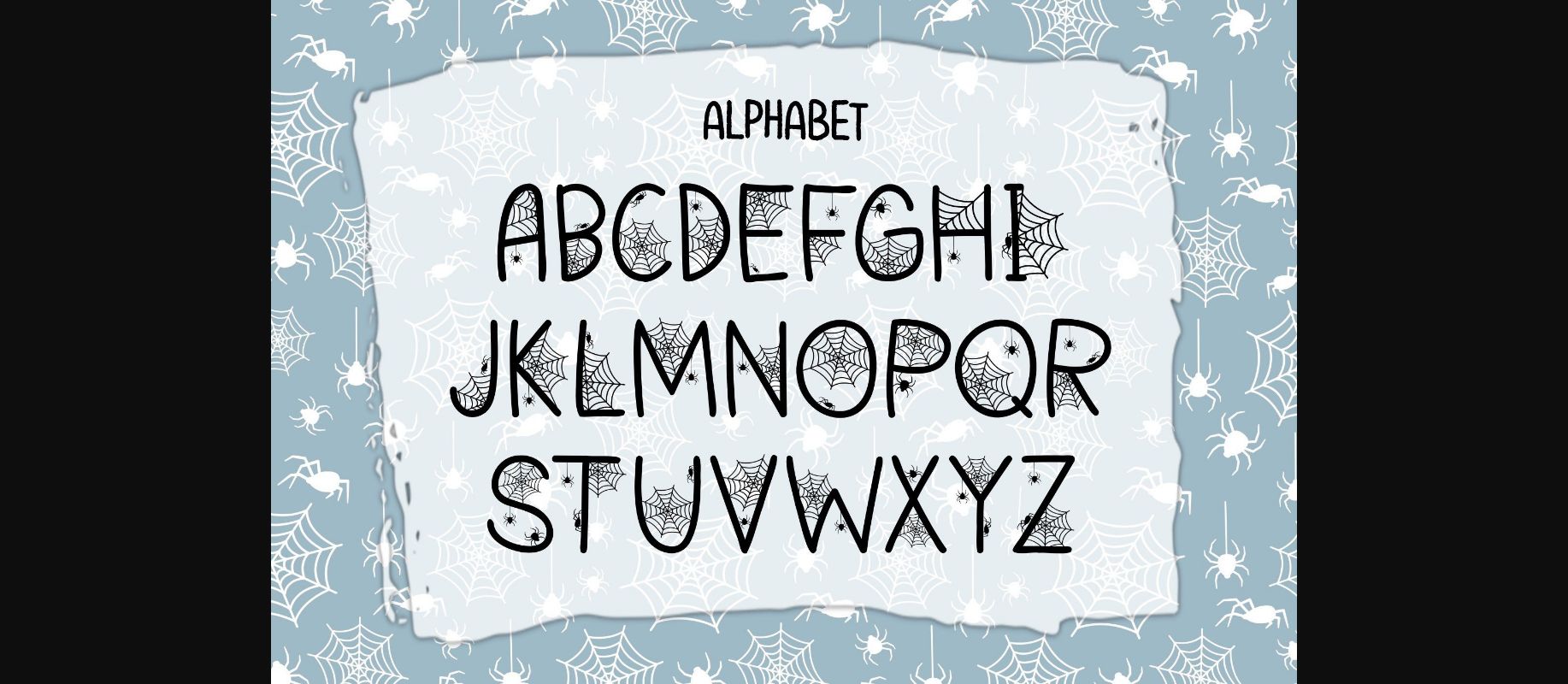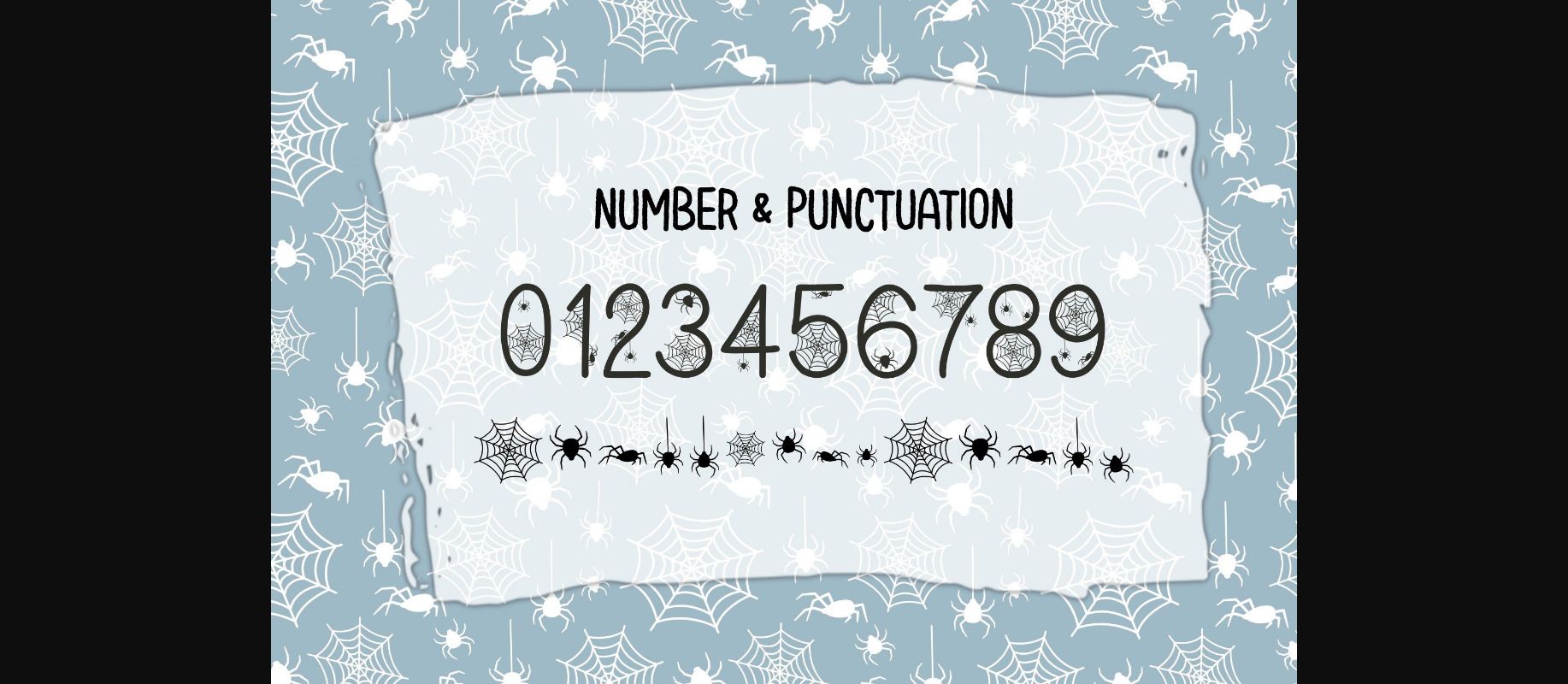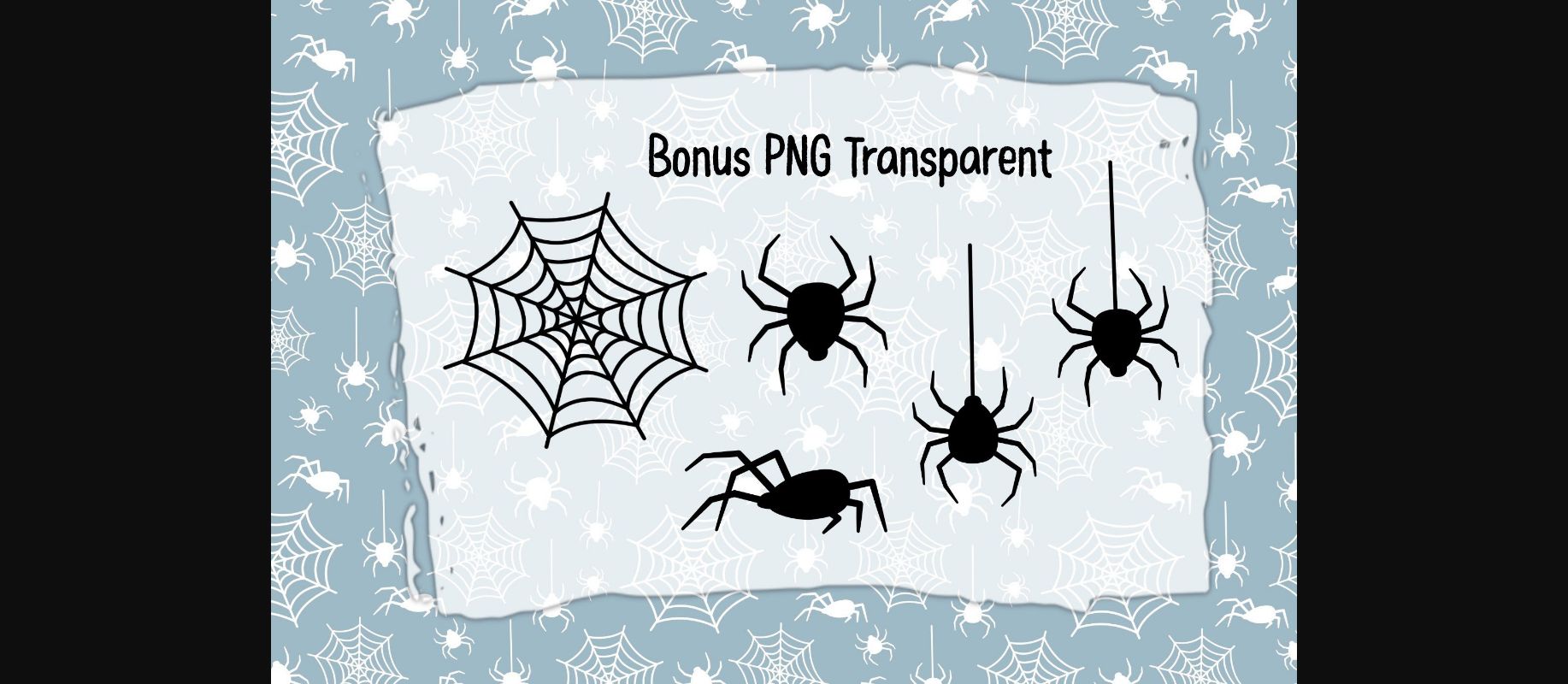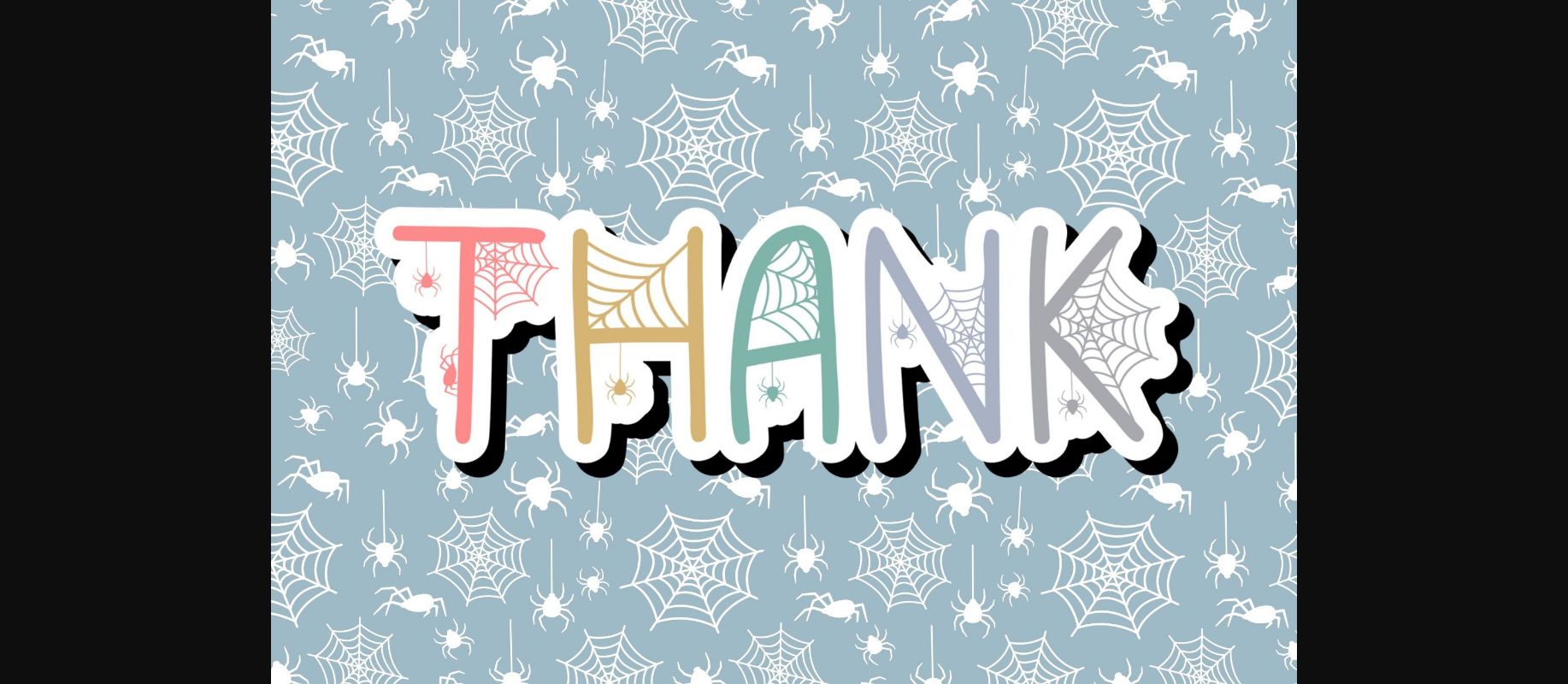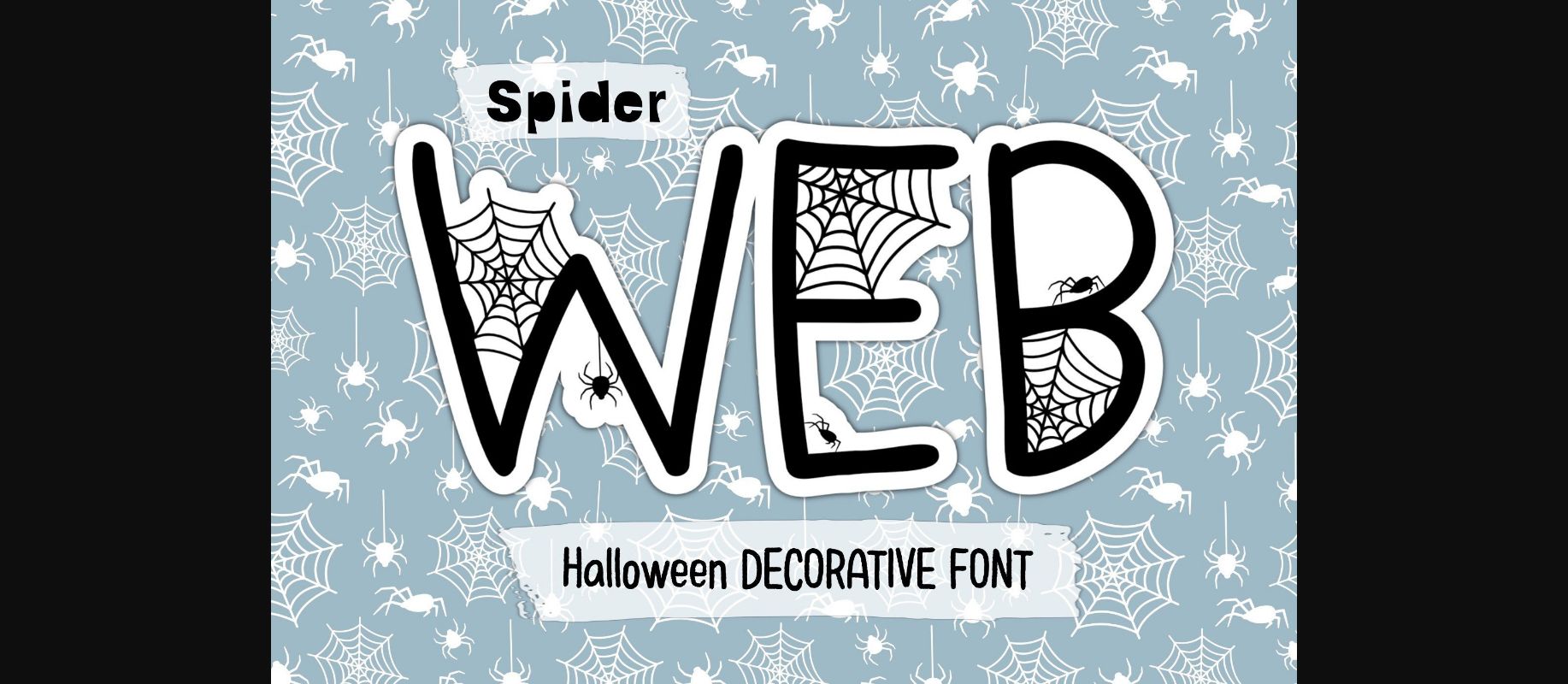
Spider Web Font
About Spider Web Font
Spider Web is a fun and spooky decorative font. This font is the perfect fit for all of your logos, branding, social media, crafty DIY projects, and much more!